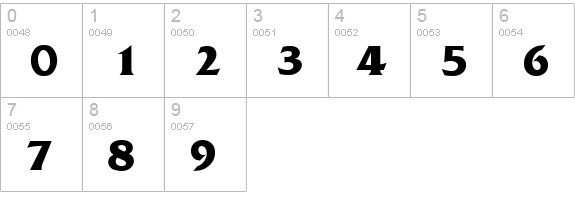
QuadratSerial-Xbold-Regular is the standard, neutral variant in the QuadratSerial typeface family \xE2\x80\x94 well suited to general body text, paragraphs, and standard typographic work.
QuadratSerial-Xbold-Regular is a sleek and modern font that exudes confidence and professionalism. Its bold and angular design gives any text a strong and impactful presence, making it perfect for headlines, logos, and branding materials. This font is versatile and can be used in a variety of design projects, from print to digital. What makes QuadratSerial-Xbold-Regular even more appealing is that it is available for free download at FontsMarket.com. This means you can easily access this stylish font without any cost, making it a valuable addition to your font library. Don't miss out on the opportunity to enhance your designs with the bold elegance of QuadratSerial-Xbold-Regular. Download it today and elevate your creative projects to the next level.